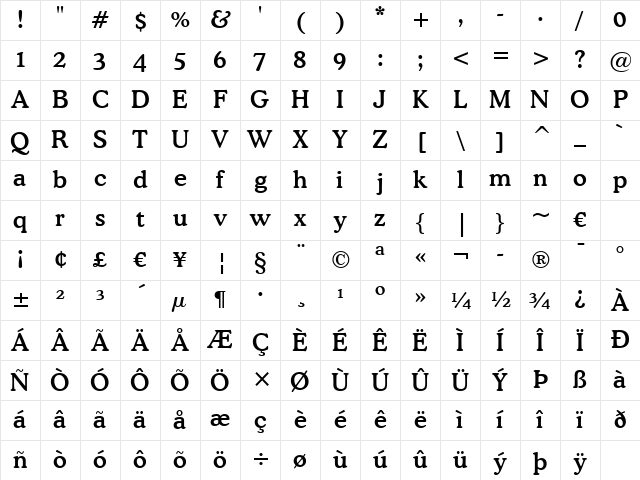
font116 Regular
Design Context for font116
font116 is a composed and adaptable typeface that performs quietly and consistently across a wide range of design contexts.